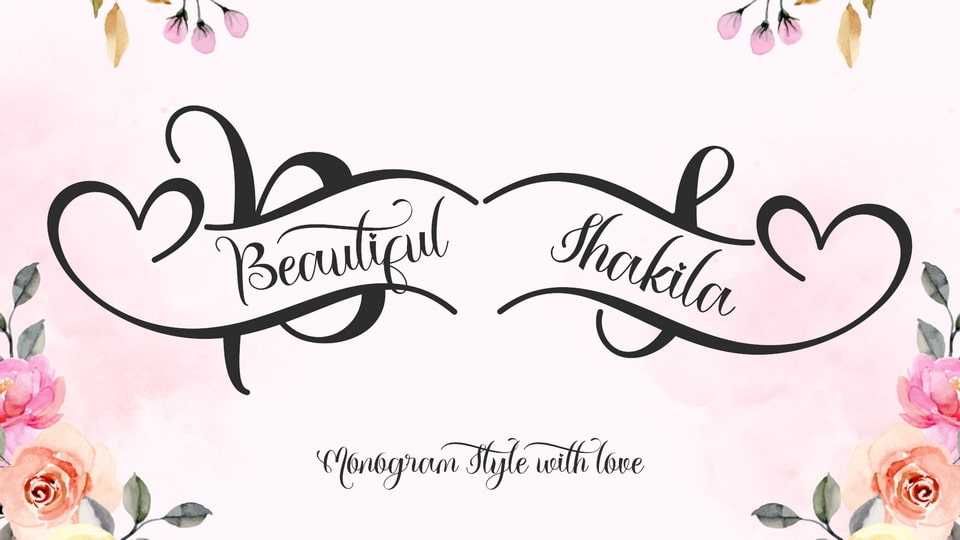
Download Beautiful Shakila font, an elegant decorative script typeface crafted in a refined monogram style, perfect for designs that celebrate romance, sophistication, and timeless beauty.